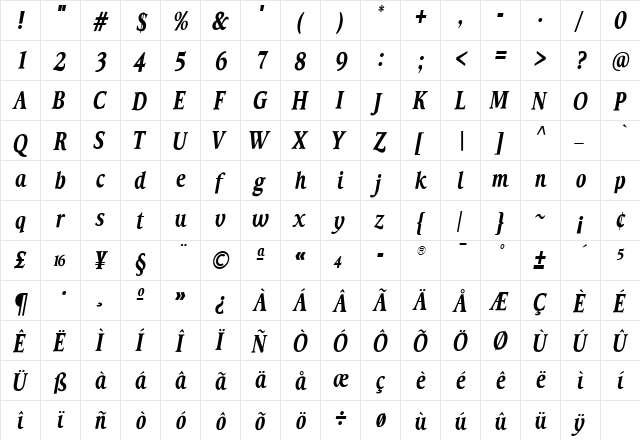
TFHabitatCond Bold
| Foundry | Treacyfaces,Inc |
| Year | 1988 |
TFHabitatCond is a composed and adaptable typeface that performs quietly and consistently across a wide range of design contexts. The heavy weight commands attention and anchors typographic hierarchies. The condensed width makes it efficient for tight spaces without sacrificing legibility.